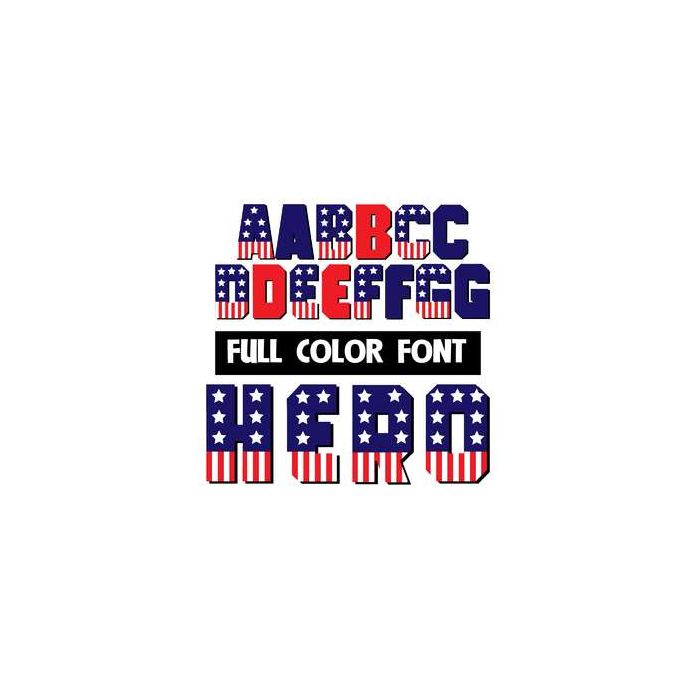
This full-color font has an uppercase that is made up of stars and stripes and solid color lowercase. Mix up both cases as you type for best results. This font works best for titles, displays, posters and more. Please note color fonts will show as black in non compatible programs. This font type is compatible with Silhouette Studio.